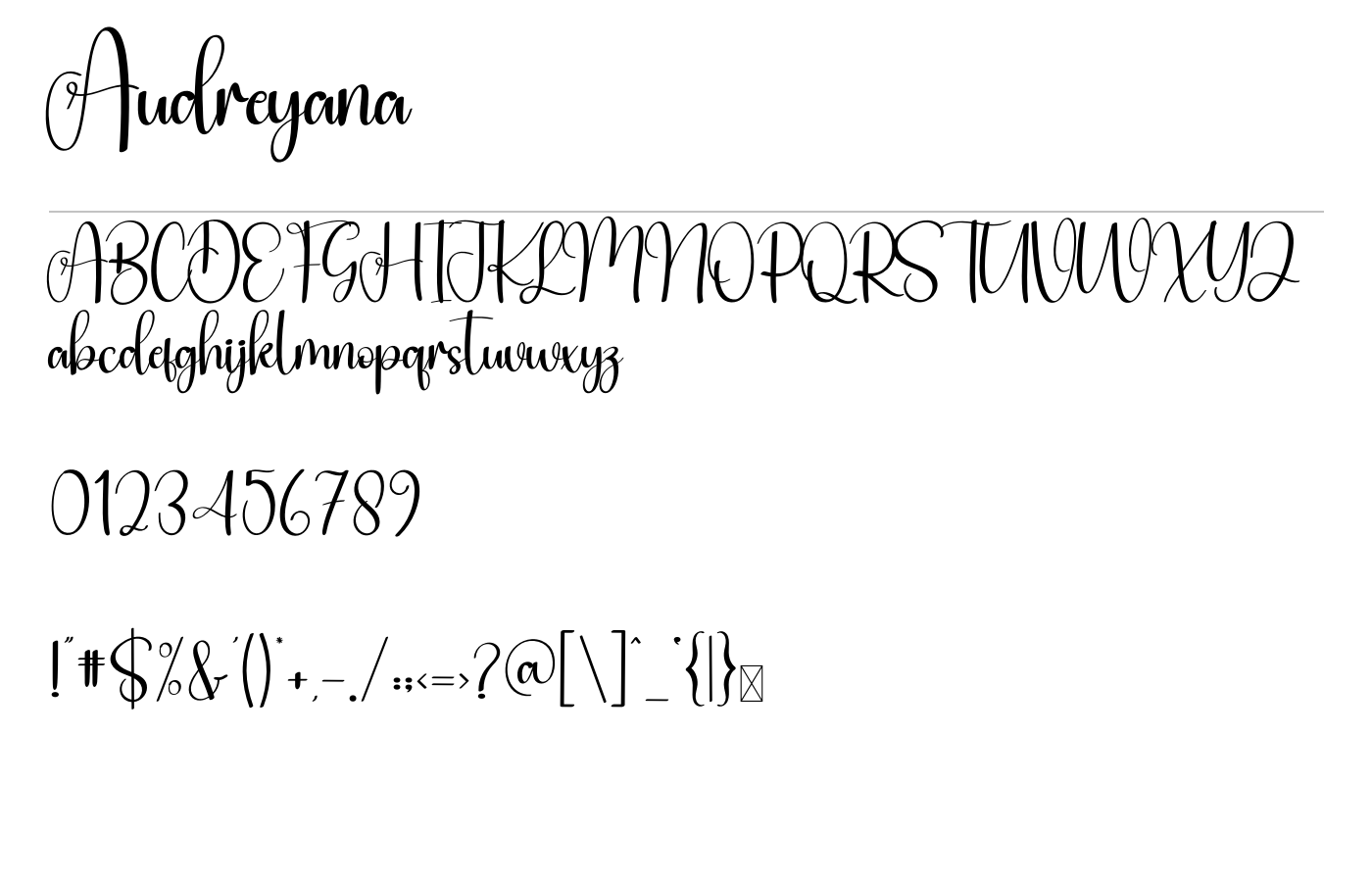
Audreyana is an elegant script font with a light, delicate weight and tall, narrow letterforms that create a refined and graceful appearance. Its handwritten style features smooth strokes with playful curls and loops, making it perfect for invitations, branding, and feminine design projects that seek a stylish yet approachable feel. This font works best in display settings where its intricate details can shine, adding a touch of charm and sophistication.
Audreyana Font